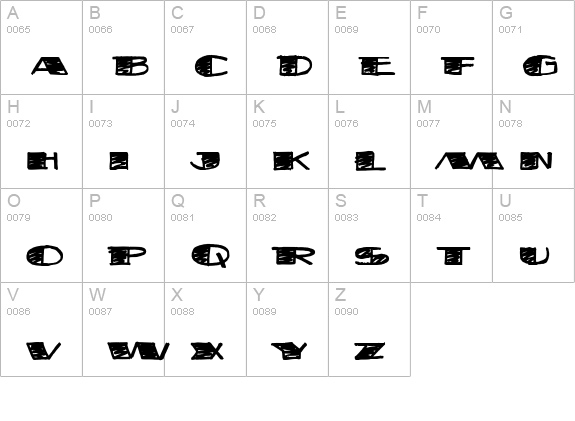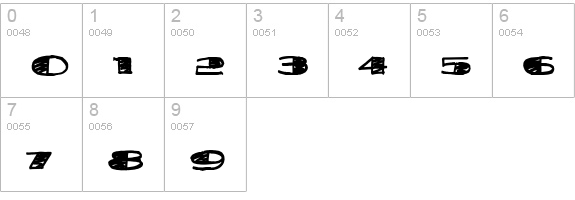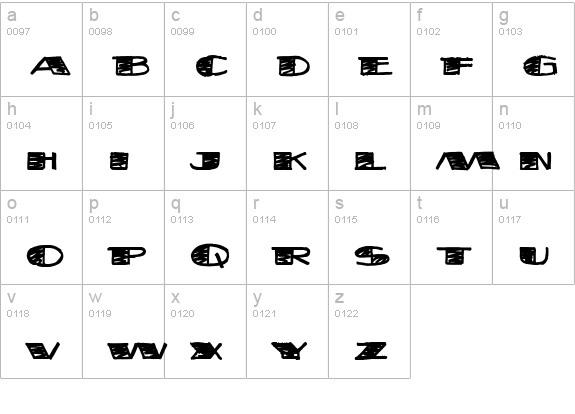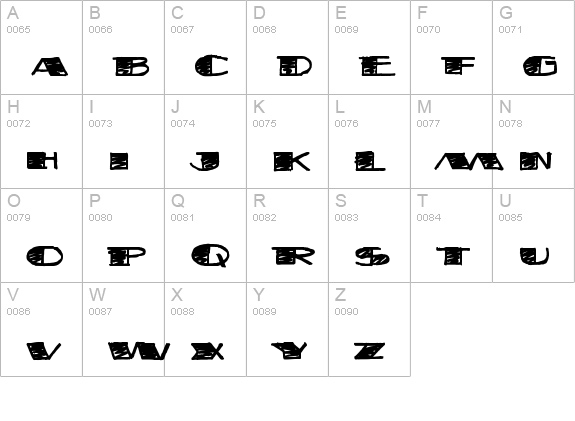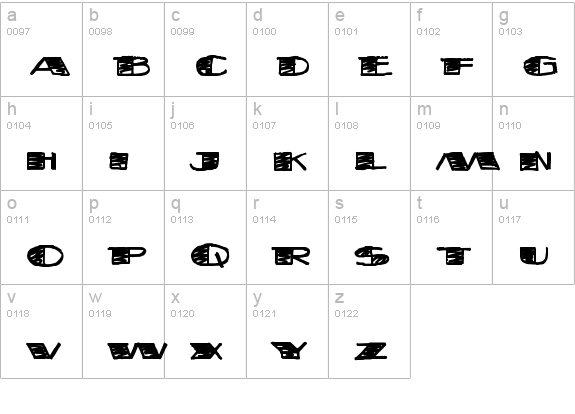
FatStack BB is a bold and eye-catching font that demands attention with its thick, stacked lettering. This font is perfect for creating impactful headlines, posters, and logos that need to make a statement. With its unique design and solid structure, FatStack BB exudes a sense of strength and confidence. What makes FatStack BB even better is that it is available for free download at FontsMarket.com. This means you can easily add this striking font to your design arsenal without spending a dime. Don't miss out on the opportunity to enhance your projects with the powerful presence of FatStack BB. Download it now and make your designs stand out from the crowd.